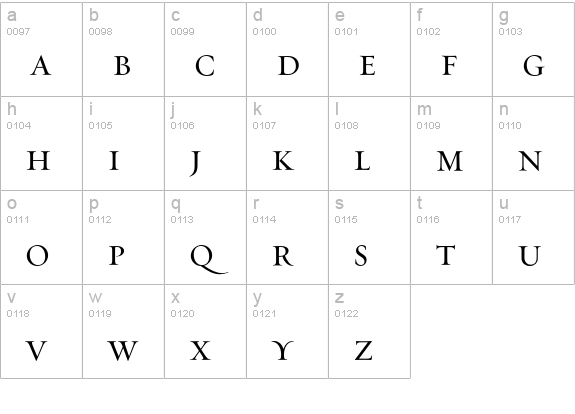
RequiemDisplay-HTF-SmallCaps Font Details
RequiemDisplay-HTF-SmallCaps font is an exquisite typographic masterpiece that seamlessly combines elegance, sophistication, and a touch of nostalgia. This font exudes a timeless charm that captivates the reader and adds a unique flair to any design project. With its meticulously crafted small caps, RequiemDisplay-HTF-SmallCaps font effortlessly adds an air of sophistication and refinement to any text. The delicate curves and intricate details of each character create a harmonious balance between classic and modern design elements. Whether used in headlines, logos, or body text, this font brings a sense of elegance and professionalism to any application. But what truly sets RequiemDisplay-HTF-SmallCaps font apart is that it is available for free. That's right, you can download this exceptional font without spending a penny. Thanks to FontsMarket.com, a leading platform for high-quality fonts, RequiemDisplay-HTF-SmallCaps font is just a few clicks away. So, whether you are a professional designer looking to elevate your creations or an enthusiast seeking to add a touch of class to your personal projects, RequiemDisplay-HTF-SmallCaps font is the perfect choice. With its timeless appeal and the convenience of being freely available, this font is a must-have for anyone who appreciates the beauty of typography. Download it now and unlock a world of endless creative possibilities.